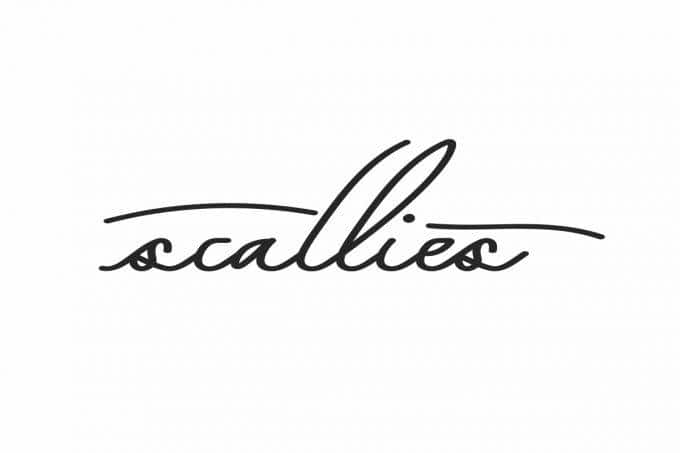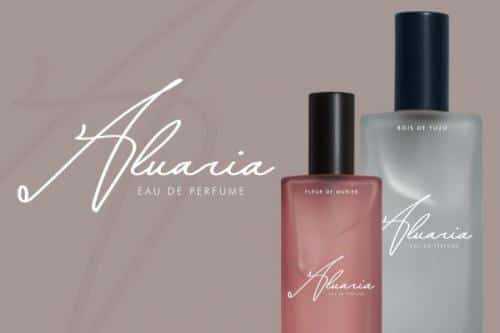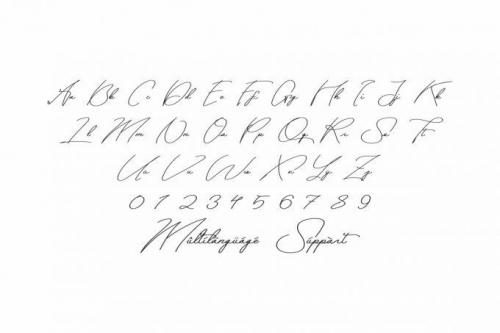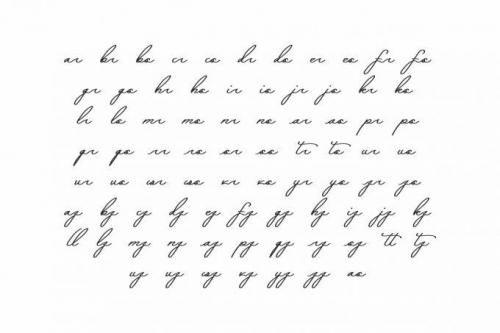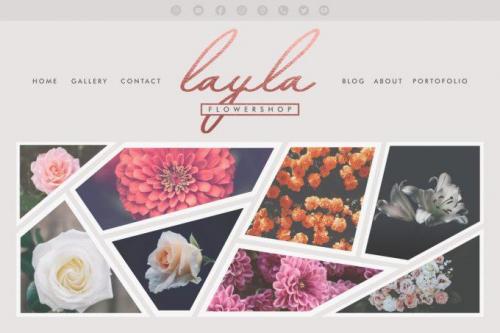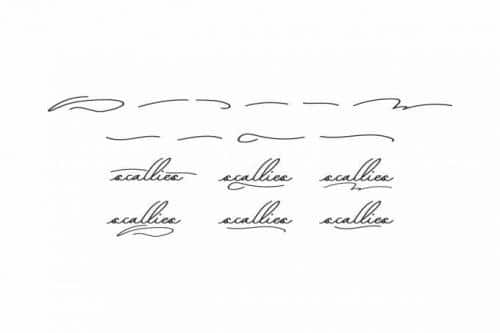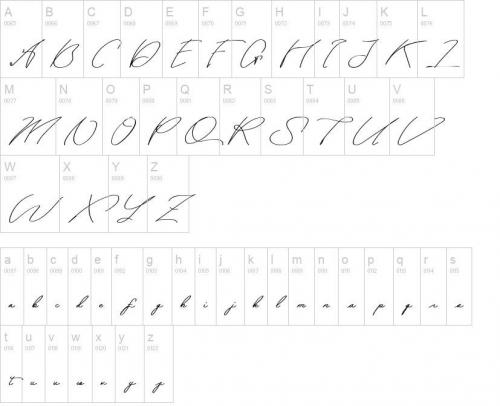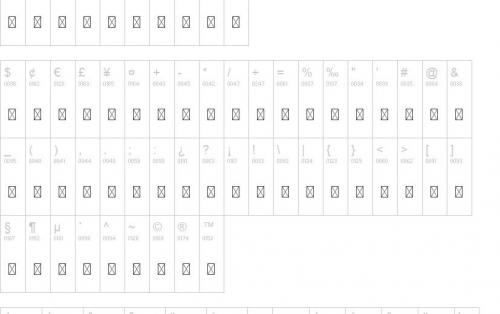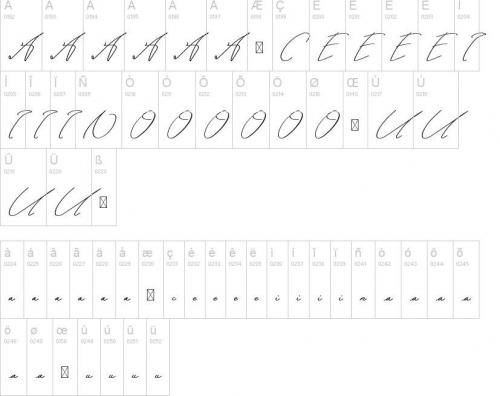
Scallies font is a classic and sophisticated signature handwriting font. This font will add a touch of elegance to wedding invitations, thank you cards, greeting cards, websites, and so much more.
- Designer: NihStudio